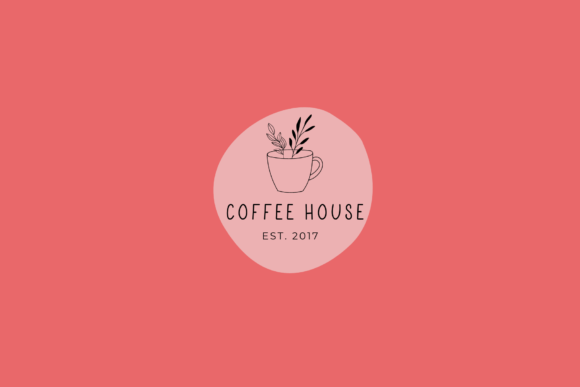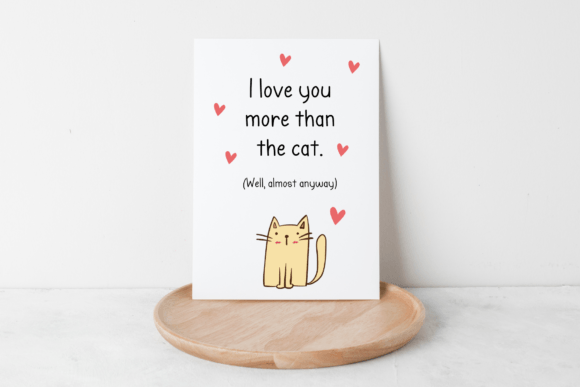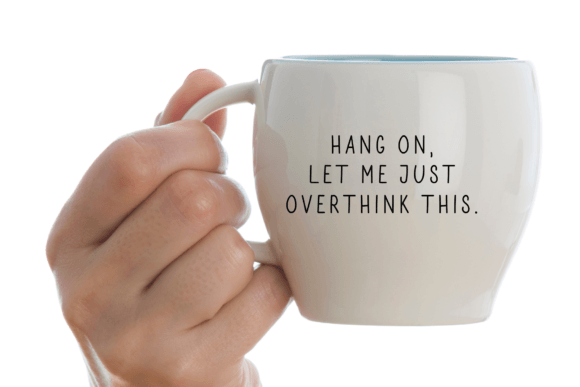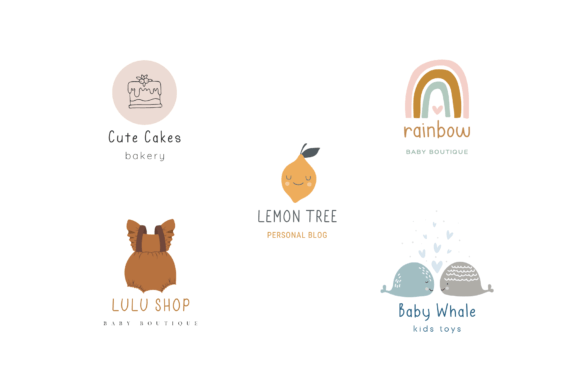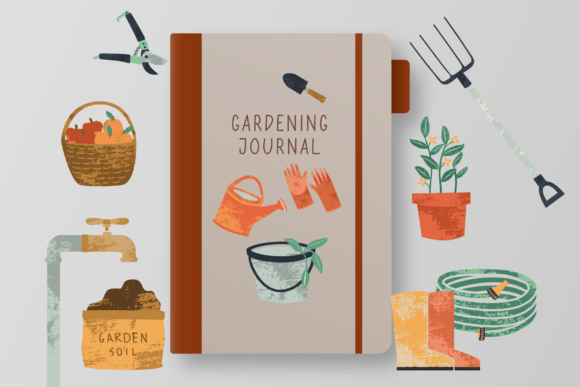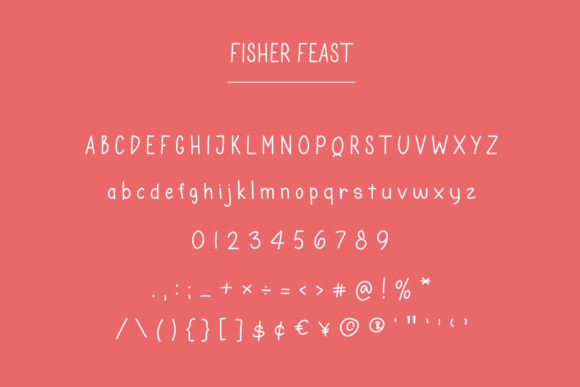
Fisher Feast Font: The Perfect Handwritten Style for Your Creative Projects
Are you a designer, crafter, or DIY enthusiast looking for a unique and versatile font to elevate your creative projects? Look no further than Fisher Feast Font, a beautiful handwritten font that can add a personal touch to a wide range of applications. In this article, we’ll explore the features and benefits of Fisher Feast Font, and show you how it can be used to create stunning digital notes, planners, logos, web designs, and more.
What is Fisher Feast Font?
Fisher Feast Font is a carefully crafted handwritten font that exudes warmth, elegance, and playfulness. Its unique character makes it perfect for adding a personal touch to various creative projects, from digital notes and planners to logos, web designs, and print materials. With Fisher Feast Font, you can create a cohesive and recognizable brand identity that sets you apart from the crowd.
Features of Fisher Feast Font
- Handwritten style: Fisher Feast Font boasts a beautiful, handwritten style that’s perfect for creating a personal and approachable look.
- Versatile: This font is incredibly versatile and can be used for a wide range of applications, from digital projects to print materials.
- Elegant and playful: Fisher Feast Font strikes the perfect balance between elegance and playfulness, making it suitable for various creative projects.
Uses of Fisher Feast Font
Fisher Feast Font is perfect for a variety of creative projects, including:
- Digital notes and planners: Add a personal touch to your digital notes and planners with Fisher Feast Font.
- Logos and branding: Create a unique and recognizable logo for your brand using Fisher Feast Font.
- Web design: Use Fisher Feast Font to create stunning website headers, titles, and other design elements.
- Notebooks and journals: Add a touch of elegance to your notebooks and journals with Fisher Feast Font.
- Labels and greeting cards: Create beautiful labels and greeting cards with Fisher Feast Font.
- Blogs and quotes: Use Fisher Feast Font to create visually appealing blog posts and quote graphics.
- Apparel and accessories: Add a personal touch to your apparel, tea towels, pillows, and mugs with Fisher Feast Font.
- Posters and baby clothing: Create stunning posters and adorable baby clothing with Fisher Feast Font.
- Picture books and toys: Use Fisher Feast Font to create engaging picture books and toys.
Benefits of Using Fisher Feast Font
By using Fisher Feast Font, you can:
- Add a personal touch: Fisher Feast Font allows you to add a personal touch to your creative projects, making them more relatable and engaging.
- Stand out from the crowd: With Fisher Feast Font, you can create unique and eye-catching designs that set you apart from others.
- Enhance brand identity: Fisher Feast Font can help you create a cohesive brand identity that reflects your personality and style.
Tips for Using Fisher Feast Font
Here are some tips for getting the most out of Fisher Feast Font:
- Experiment with different sizes and colors: Fisher Feast Font looks great in various sizes and colors, so don’t be afraid to experiment and find the perfect combination for your project.
- Mix and match with other fonts: Fisher Feast Font pairs well with other fonts, so try mixing and matching it with different styles to create a unique look.
- Use it consistently: To create a cohesive brand identity, use Fisher Feast Font consistently across all your creative projects.
| Font Name | Fisher Feast Font |
| Author | Cotton White Studio |
Fisher Feast Font is a versatile and beautiful handwritten font that’s perfect for a wide range of creative projects. With its elegant and playful style, it’s ideal for designers, crafters, and DIY enthusiasts looking to add a personal touch to their work. Whether you’re creating digital notes, logos, web designs, or print materials, Fisher Feast Font is sure to become your go-to font. So why wait? Give Fisher Feast Font a try today and take your creative projects to the next level!